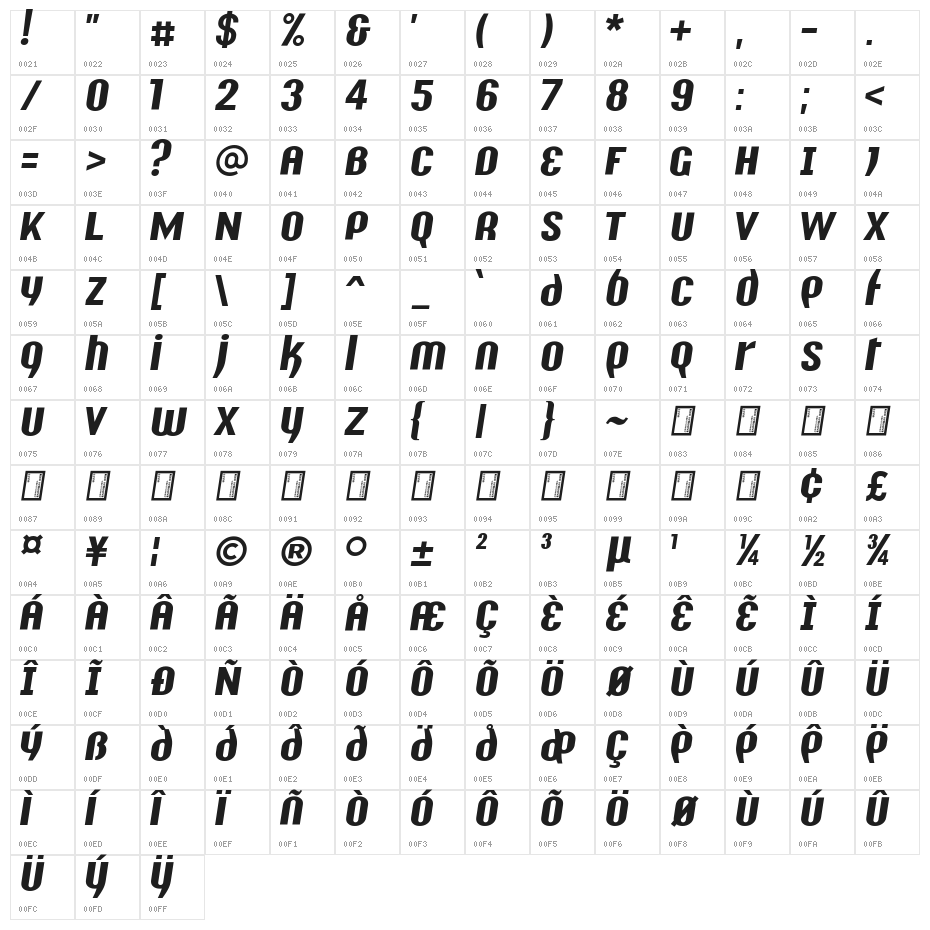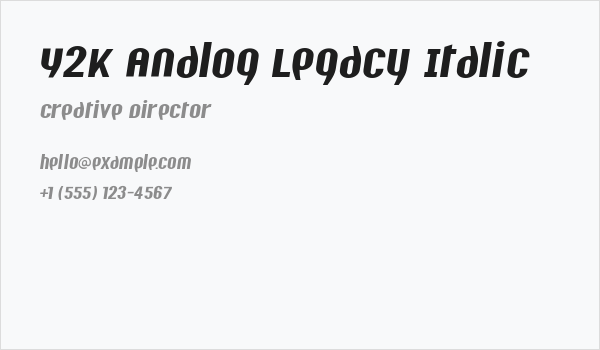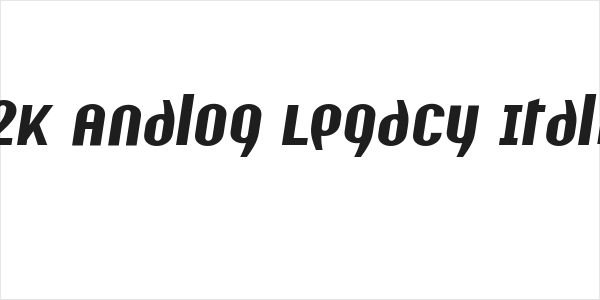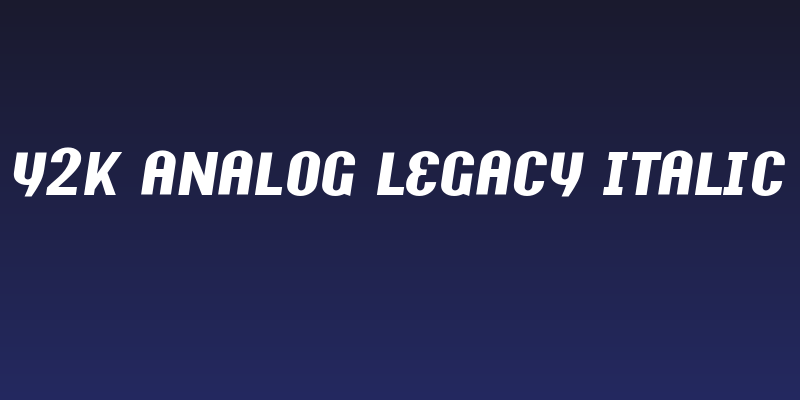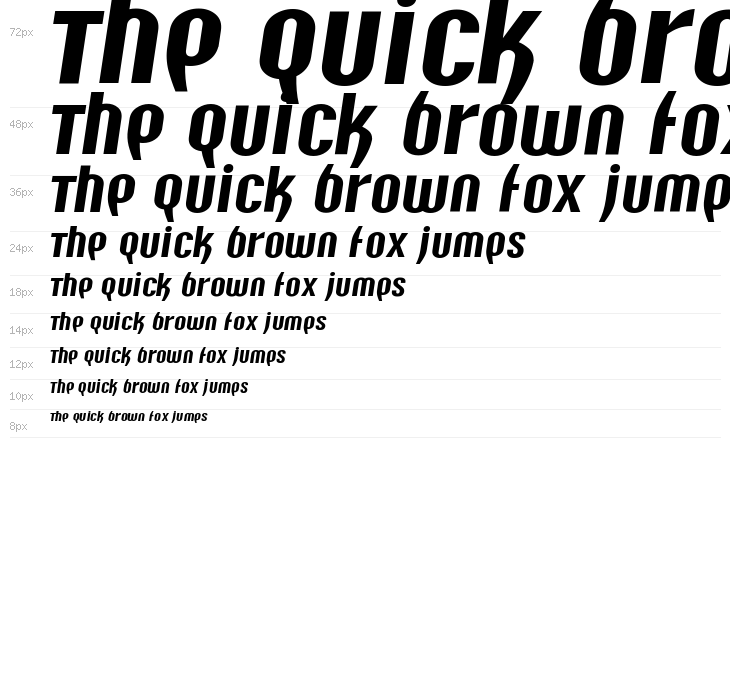
Y2K Analog Legacy Italic Font
Y2K Analog Legacy Italic Description
This font features a bold and dynamic style with a distinct italic slant, giving it a sense of movement and energy. The characters are wide and robust, with a consistent stroke width that maintains readability while adding a touch of modern flair. The uppercase and lowercase letters are well-proportioned, and the numerals are clear and prominent. Special characters are designed with the same boldness, ensuring they stand out effectively. The overall design is sleek and contemporary, making it suitable for various creative applications.
| Proposed Projects | Ideal for branding, advertising, posters, and digital media projects where a strong, modern presence is required. |